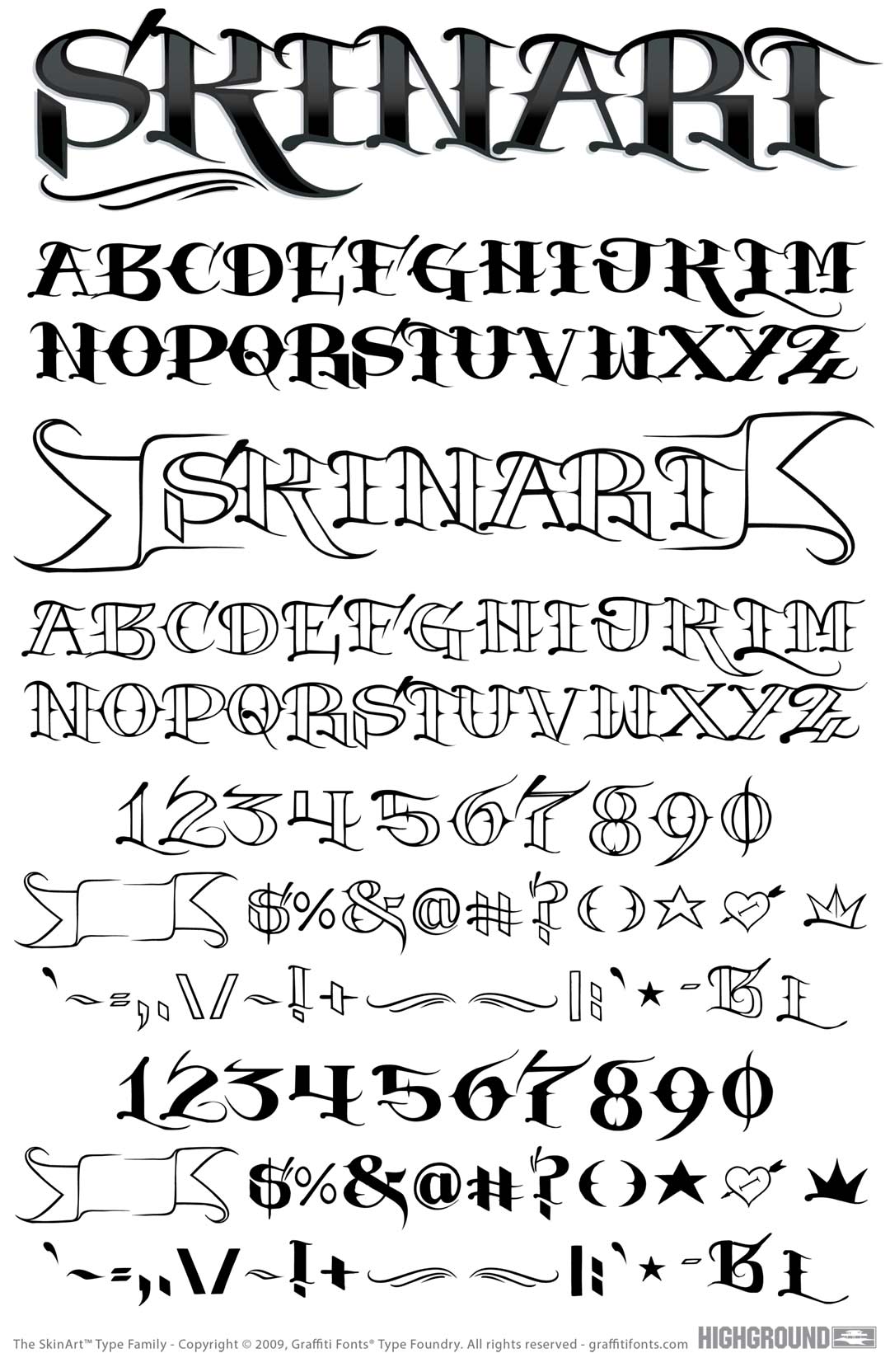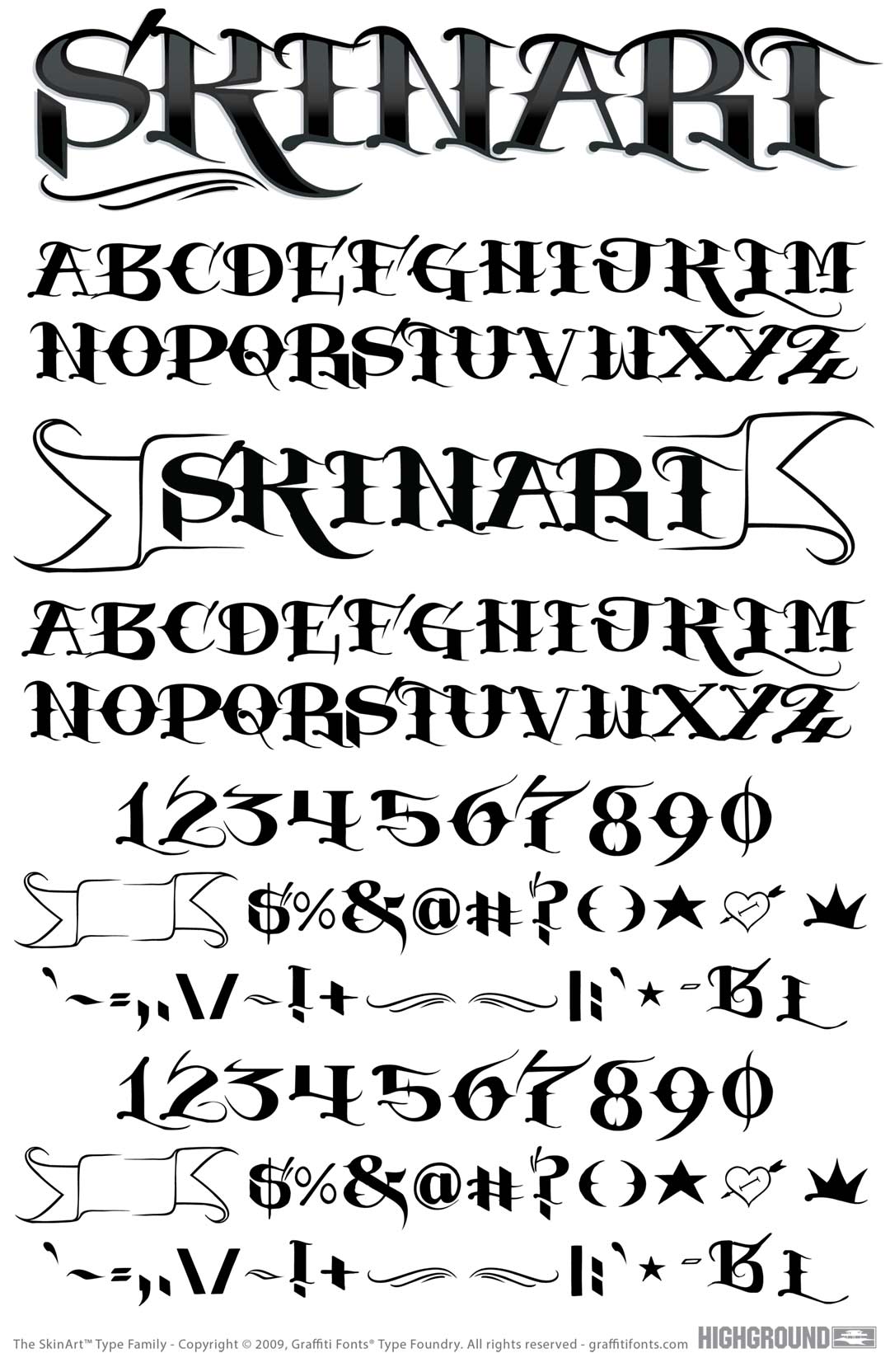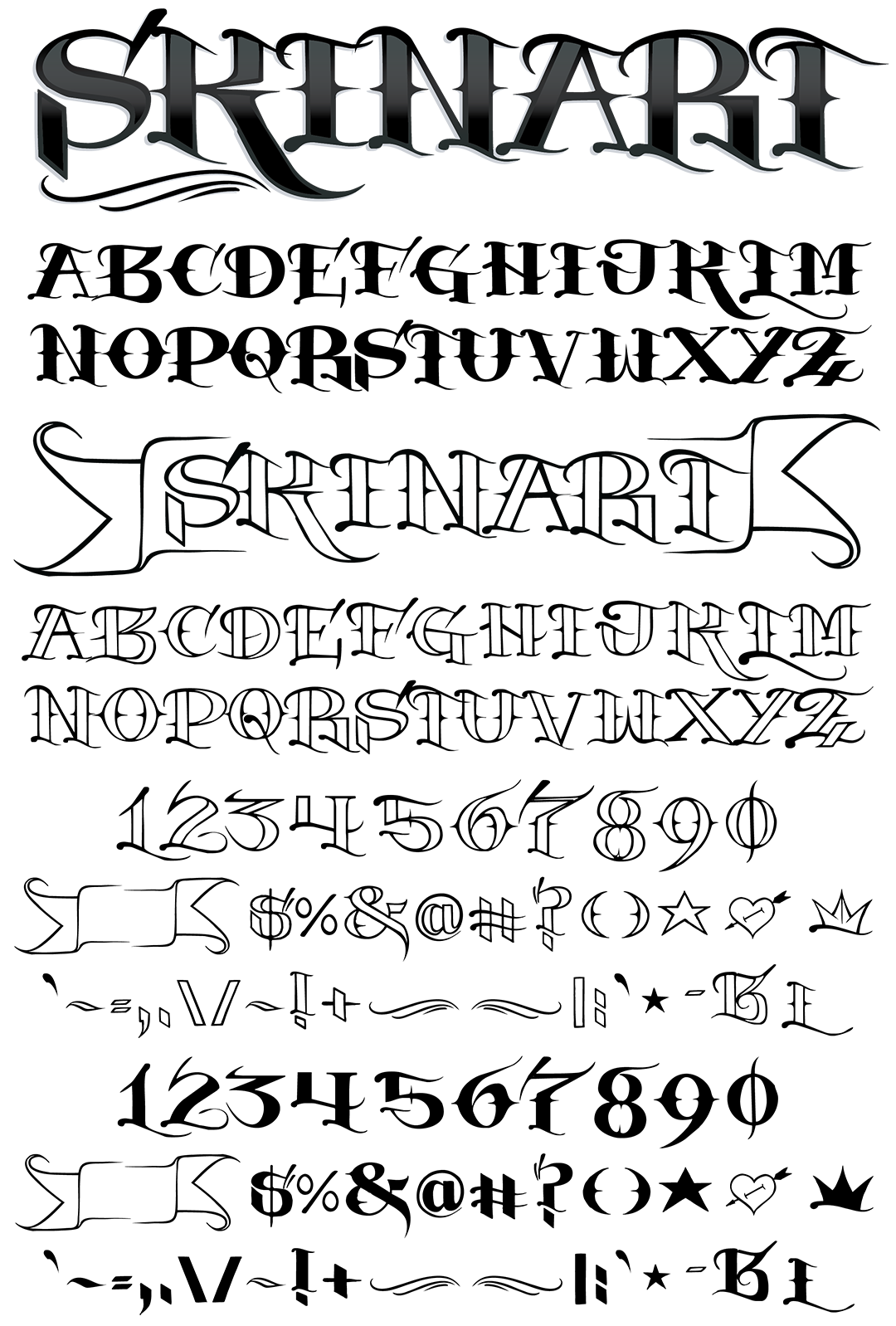
SkinArt Font
SkinArt Graffiti Alphabet
SkinArt Graffiti Font Family
Vintage tattoo style lettering with a hand-drawn feel. Two styles are included. The main style features Outlined characters for the uppercase letters & solid fill styles for the lowercase letters. The "Black" style uses the solid fill letters for both. Each style contains 110 characters including letters, numbers, punctuation, symbols & several simple pieces of art including hearts, banners, underlines & more.